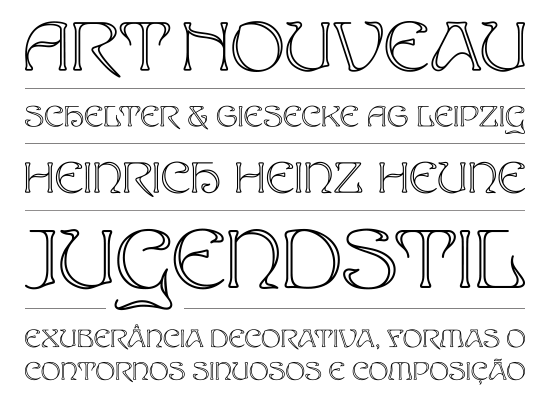
Heinrich (Heinz) Keune
Heinz Keune (possibly Keune von Waldheim) was born in 1881 in Hannover, and died in 1946 in Berlin. He was a signpainter in Hannover and Leipzig and, from 1903 onwards, a freelance graphic designer in Weimar and Berlin. From 1908 until 1910, he studied in Leipzig under H. Steiner-Prag and H. Delitsch before returning to Hannover in 1911. In 1915 he became a professor at the Königlichen Kunstschule in Berlin. From 1918 until 1920, he taught at the Akademische Hochschule für bildende Künste at Berlin Charlottenburg. From 1920 on, he taught at the Kunstgewerbe und Handwerkerschule in Berlin-Ost.
All his typefaces were designed at Schelter&Giesecke, between 1900 and 1909. He created Rosenzierat Serien 534 und 535 (1905), Mimosenzierat (1909), Edda (1900, late art nouveau style), Wallenstein (1904, art nouveau), Lichte Wallenstein (1904), Wittelsbach (1903, German expressionist face), Habsburg (1903, German expressionist face), Maria Theresia (1903), Ovid (1903, art nouveau), Rousseau (1905, a travel poster script face), and Wettin (1902, art nouveau).
Digital revivals: Most revivals are by Oliver Weiss of WaldenFont:
• WF Border Ver Sacrum: Based on borders by Heinz Keune for Schelter & Giesecke, 1901 (or earlier).
• WF Habsburg: After an original by Heinz Keune from 1903 for Schelter & Giesecke.
• WF Maria Theresia: After Maria-Theresia-Versalien (1903, Heinz Keune for Schelter & Giesecke).
• WF Ovid: After an original by Heinz Keune from 1903 for Schelter & Giesecke.
• WF Wallenstein: Based on an original by Heinz Keune (1904), who intended it as a heavy weight companion of Habsburg and Wittelsbach,
• WF Wittelsbach: After an original by Heinz Keune from 1903 for Schelter & Giesecke.
Edda has many revivals, including one by Ralph M. Unger (Edda Pro, 2008), and one by Michael Parson (Huggy, 2017).